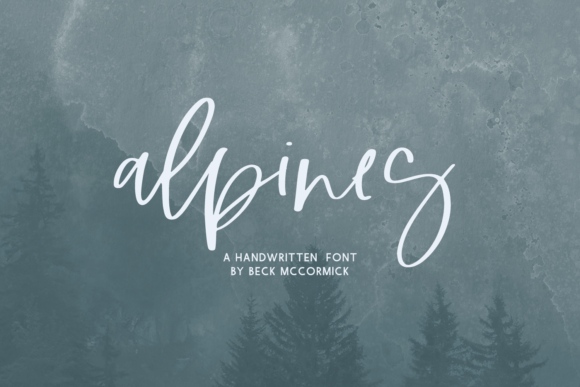
Behold Alpines, a calligraphic script font that urges you to let your creative aspirations run wild. BeckMcCormick, the visionary font artist, has meticulously crafted Alpines to embody the essence of organic, signature-style aesthetics. Experience the thrill of handwritten elegance as you immerse yourself in the world of Alpines.
Alpines isn't merely a collection of letters; it's an invitation to express your individuality. Unleash your inner artist and let the smooth, sweeping strokes of Alpines dance across your designs. Whether you're a seasoned designer or just starting your creative journey, Alpines will effortlessly add a touch of sophistication and charm to your projects.
Picture this: a captivating wedding invitation adorned with Alpines' graceful swirls, conveying the heartfelt emotions of the special day. Or envision a mesmerizing logo, etched with Alpines' distinctive characters, leaving an unforgettable impression on your audience. The possibilities are endless, and Alpines is your trusty companion, ready to transform your creative visions into tangible masterpieces.
With Alpines, you'll discover a font that effortlessly blends elegance and playfulness. Its whimsical nature adds a touch of whimsy to your designs, while its solid foundation ensures readability and clarity. Say goodbye to monotonous fonts that blend into the background. Alpines demands attention, captivating your audience with its captivating presence.